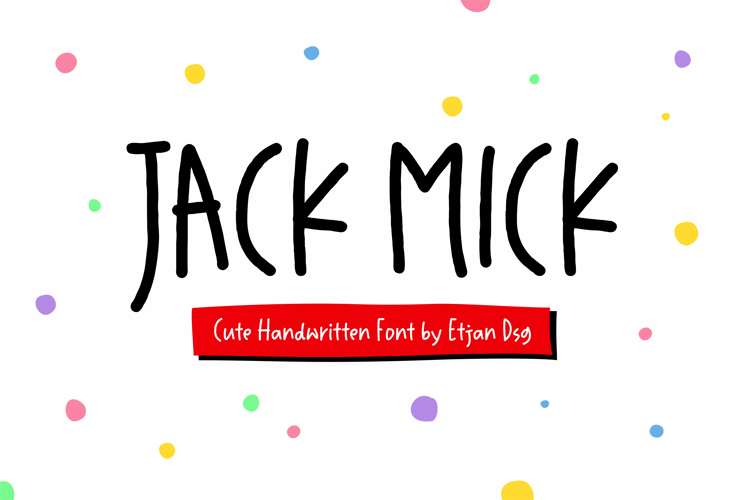
Jack Mick Font
About Jack Mick Font
More info from Etjan Dsg
Jack Mick is a cute and quirky handwritten font. It can be added to various informal or casual designs. The only limit is your imagination!